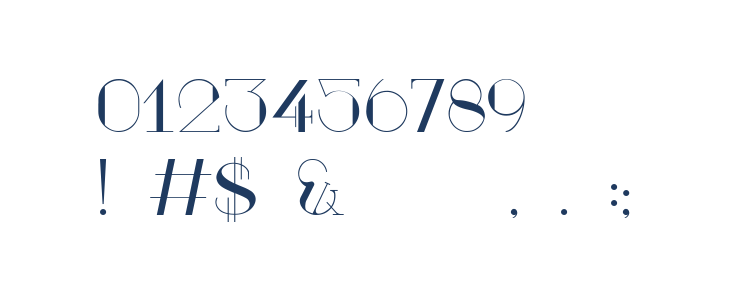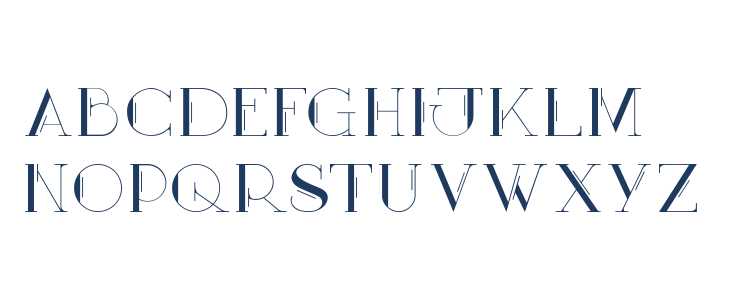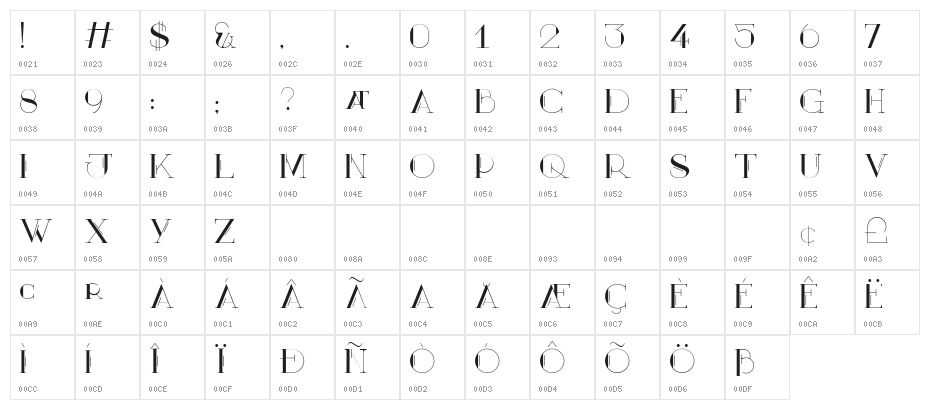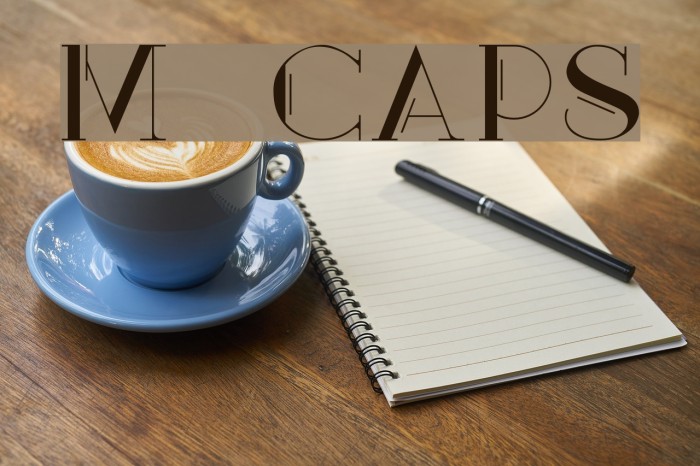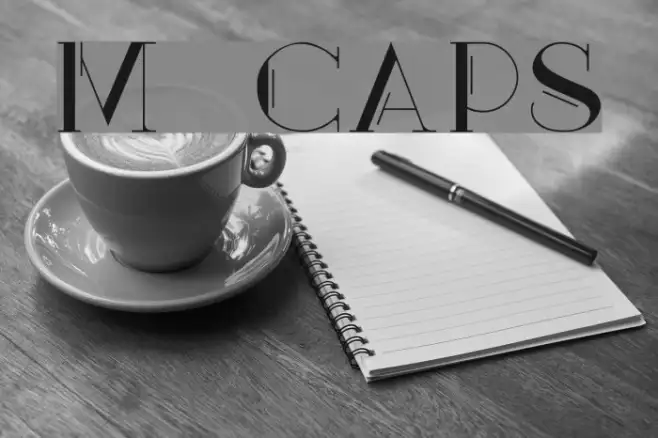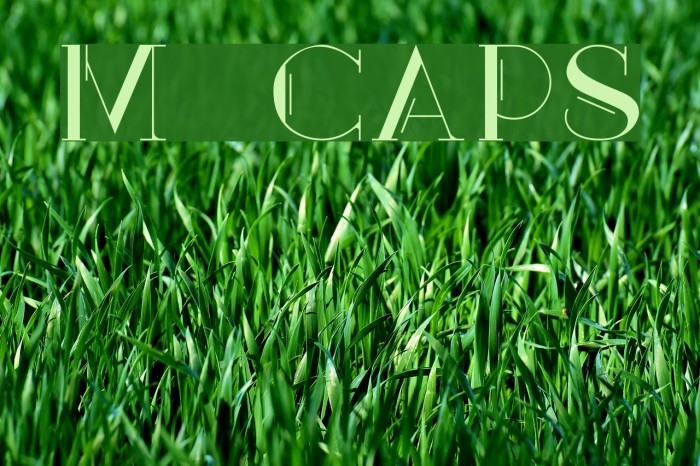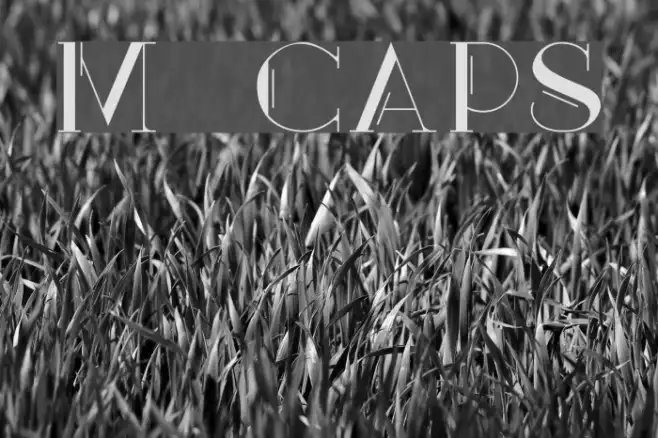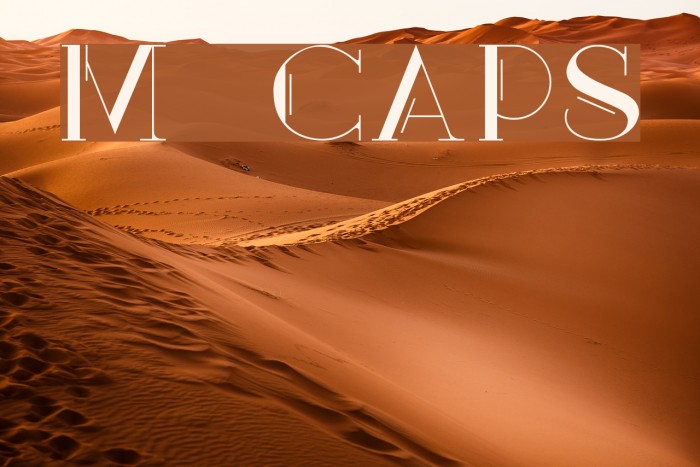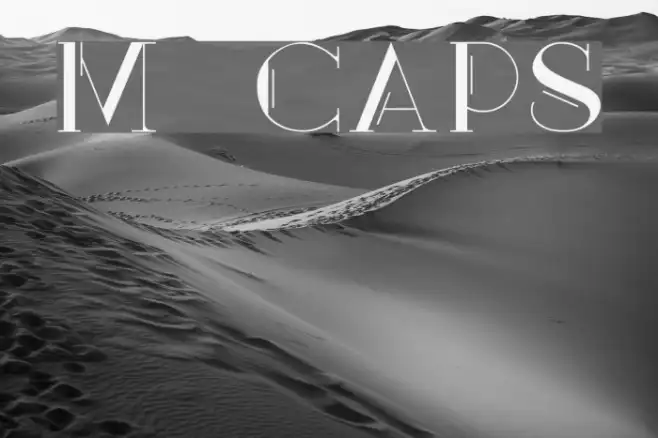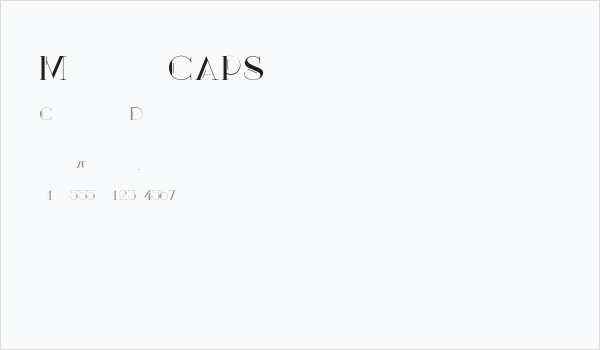
Mary [CAPS] Font
Mary [CAPS] Description
This font features a unique blend of modern and classic elements, characterized by its high contrast between thick and thin strokes. The uppercase letters exhibit a distinct geometric style with sharp angles and clean lines, while the lowercase letters maintain a consistent aesthetic. The numerals are bold and striking, complementing the overall design. Special characters are creatively integrated, adding a touch of elegance and sophistication. This font's design is both eye-catching and versatile, making it suitable for a wide range of applications.